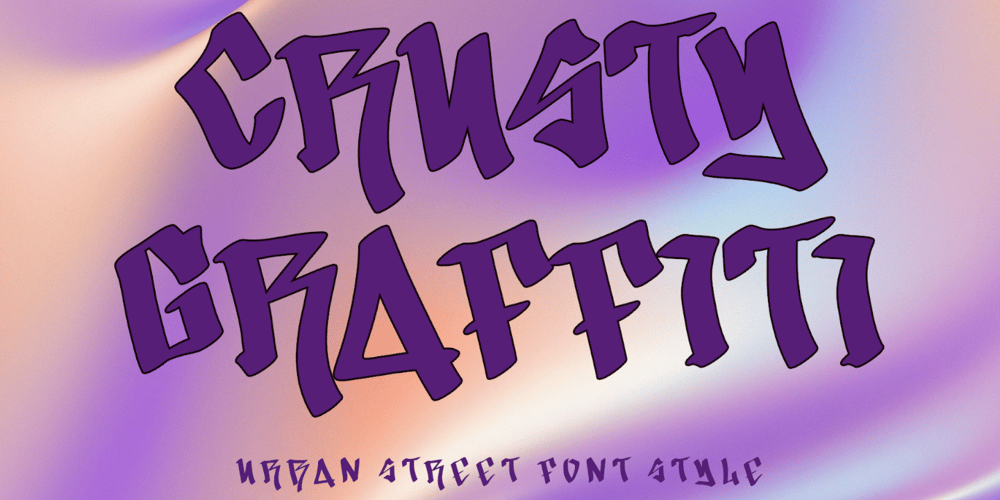
Crusty Graffiti
Crusty Graffiti font
Crusty Graffiti Font Family was designed by Isroni Yoga Prasetya and published by Yoga Letter. Crusty Graffiti contains 1 styles and family package options. “Crusty Graffiti” is an elegant graffiti font. This font is equipped with uppercase, lowercase, numerals, punctuation, and multilingual support. Very suitable for street fonts, murals, metal concerts, rock music, business branding, logos, banners, posters, stickers, branding, and others.